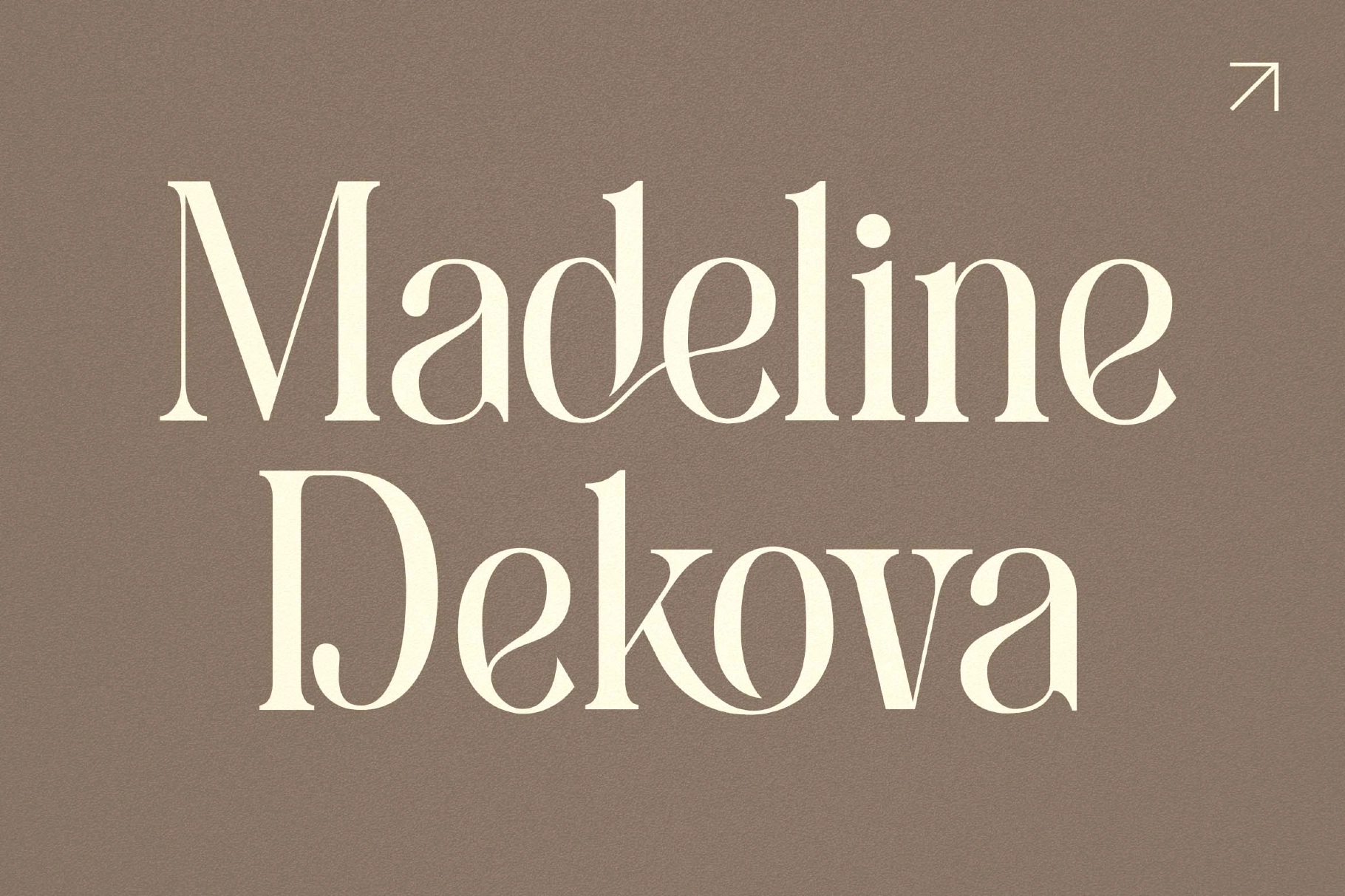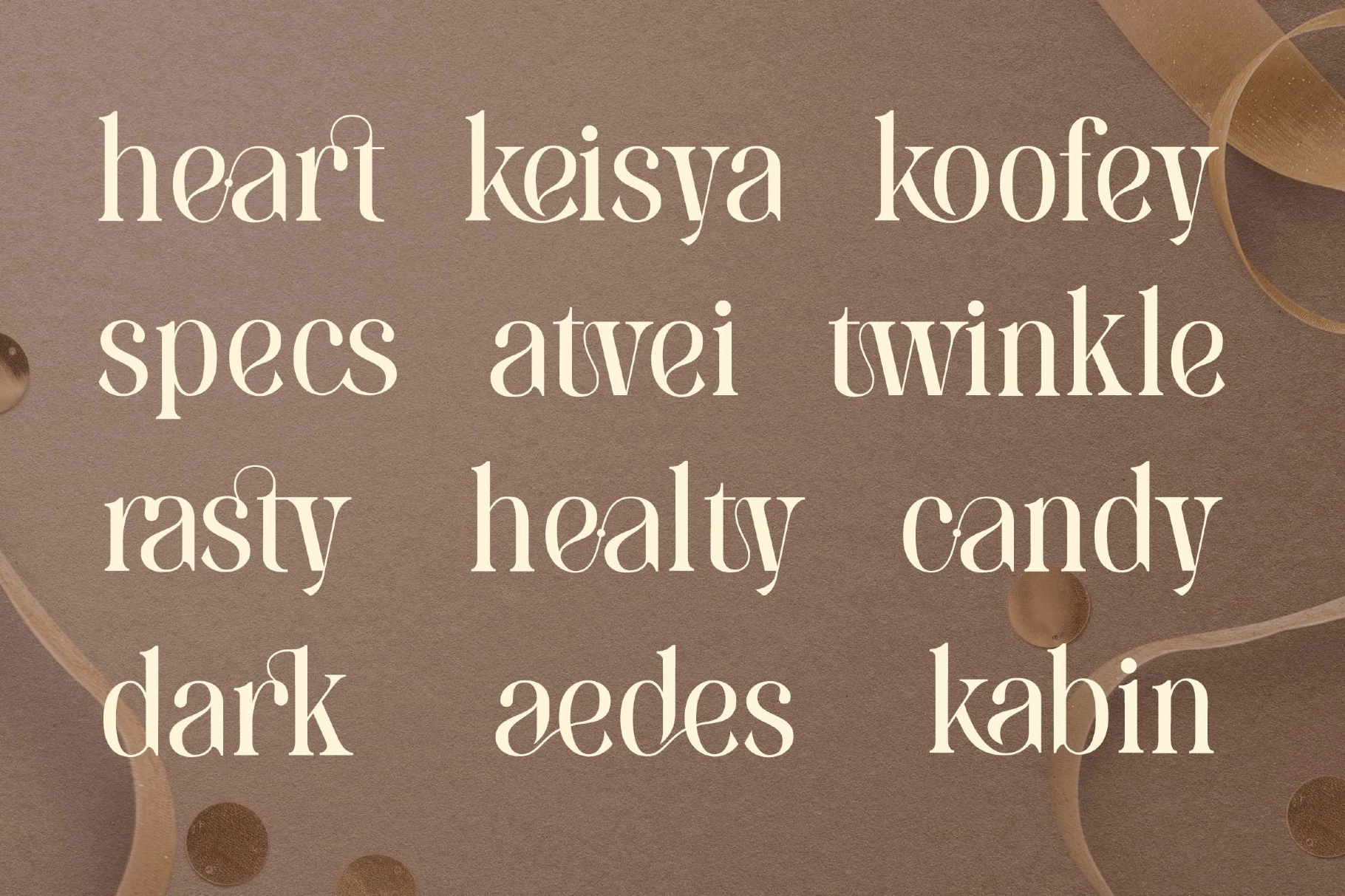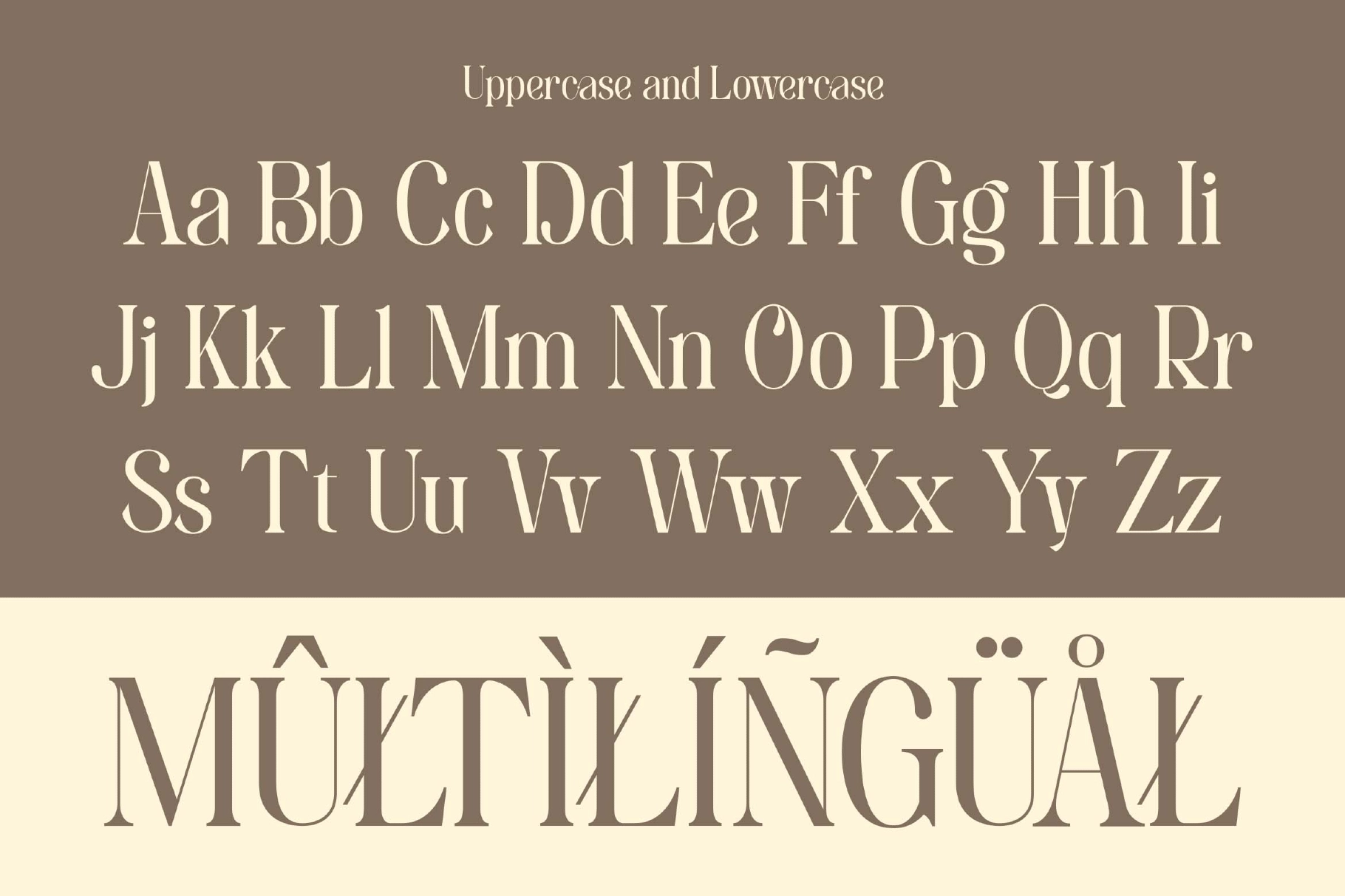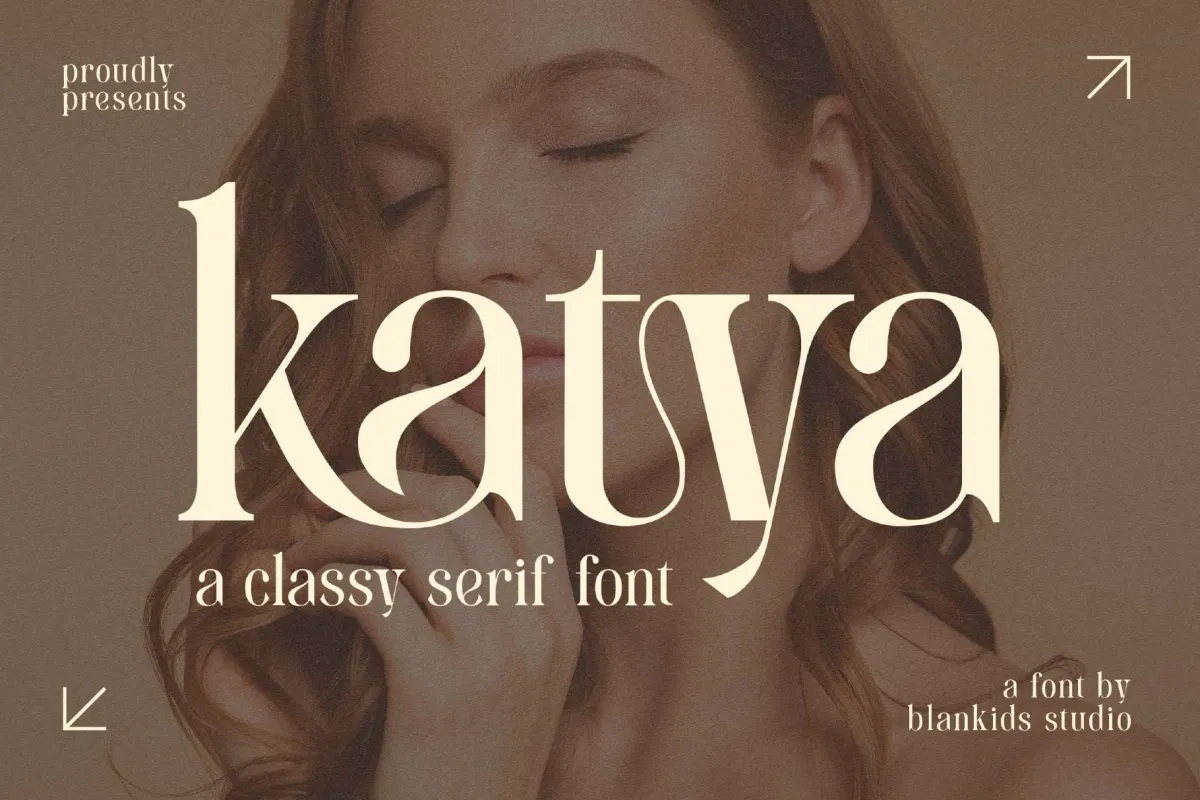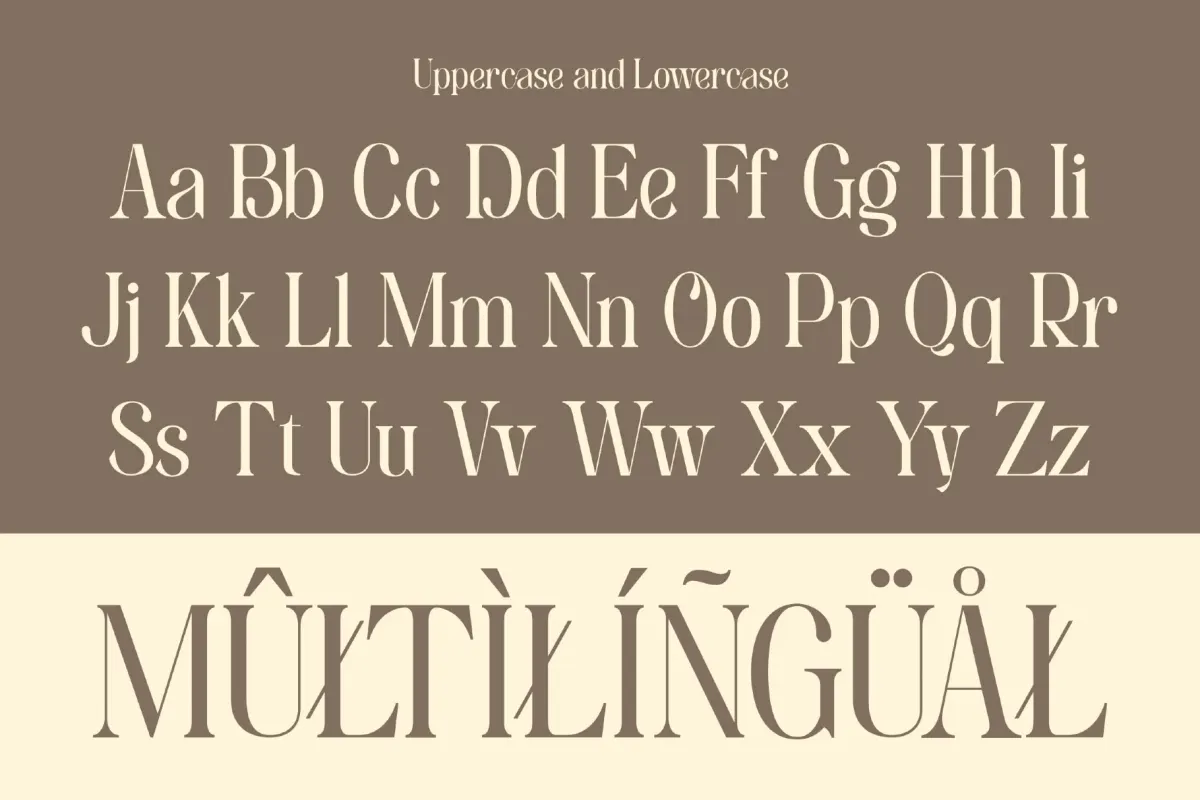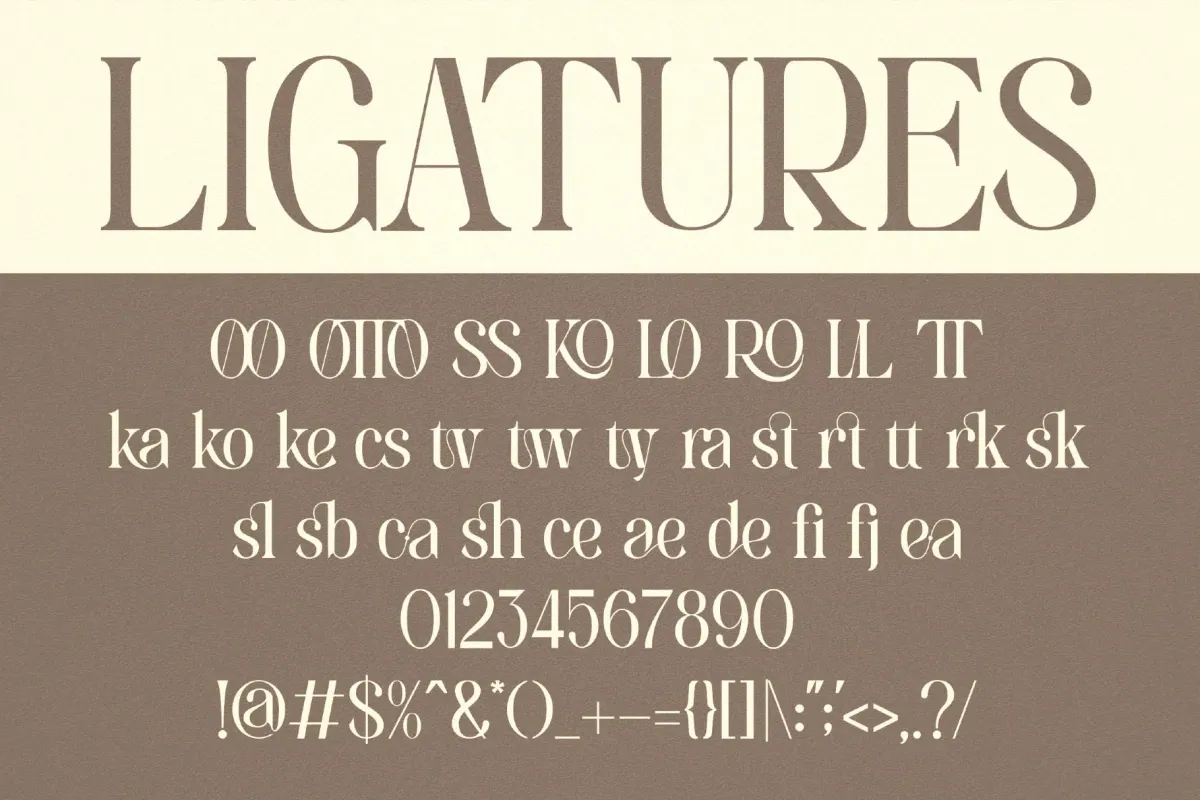
Katya a Luxury Serif Font
Katya a Luxury Serif Font is made for any professional project branding, such as logotype, watermarks, poster, branding, promotions, product packaging, etc. Every letter has a luxury style design. This font comes in Otf. and Ttf. files.
Katya font includes a full set of luxury uppercase and lowercase letters, numerals and punctuation. This font has a luxury style. See the previews above to get some inspiration on how to use them.